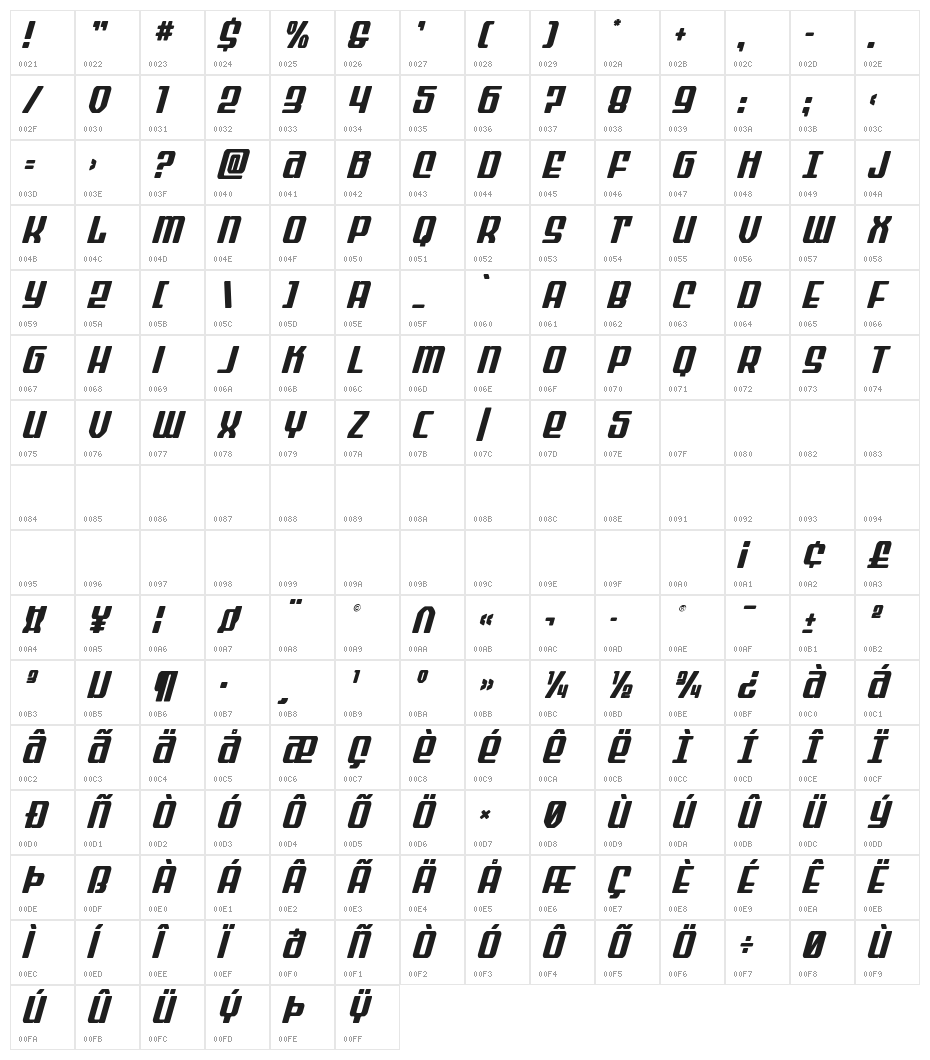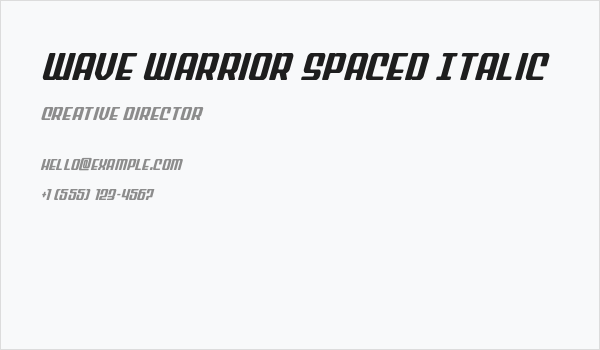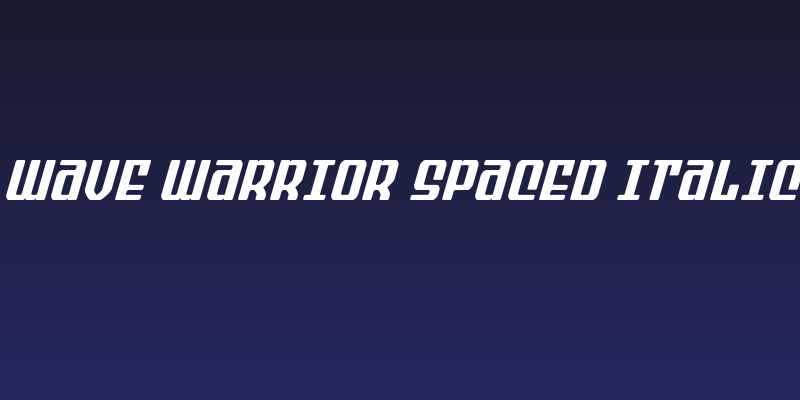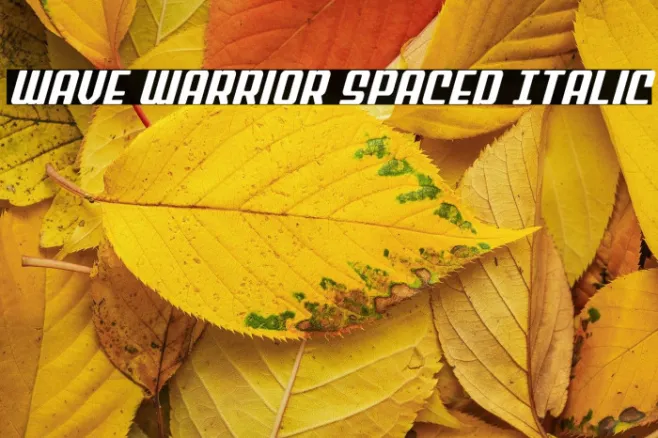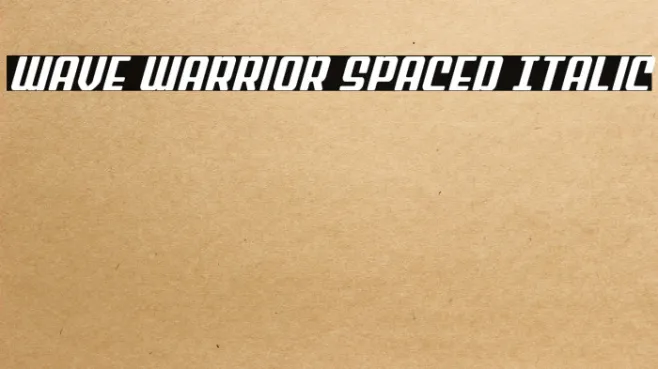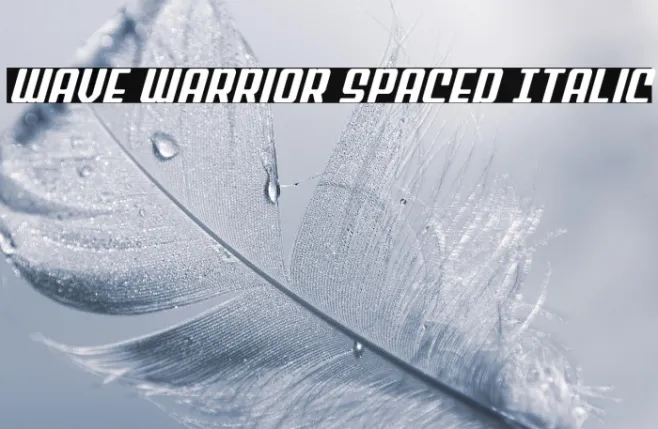
Wave Warrior Spaced Italic Font
Wave Warrior Spaced Italic Description
This font features a bold, italicized style with a modern and dynamic appearance. The characters are slightly slanted, giving a sense of movement and energy. The strokes are thick and consistent, providing a strong visual impact. The uppercase and lowercase letters maintain a uniform width, contributing to a cohesive look. The numbers and special characters are designed to match the bold and italicized theme, ensuring a seamless integration across different uses. The overall style is suitable for projects that require a bold statement, such as sports branding, action-themed posters, or dynamic logos.